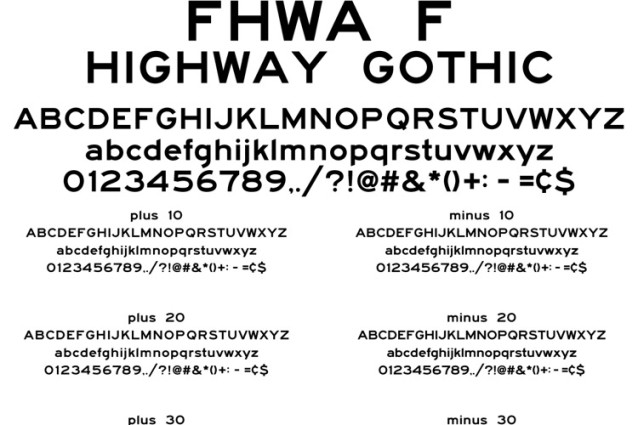
Highway Gothic F FHWA Font – These are the current Highway Gothic letterforms (updated in February 2025) used by the Federal Highway Administration (FHWA) to design the signs shown in the Manual of Uniform Traffic Control Devices (MUTCD) and the Standard Highway Signs (SHS) manuals. The spaced individual fonts are provided because the method of spacing for sign design by the FHWA does not conform to the manner of spacing used in graphic design programs. The spacing is done on a strict percentage of character width basis. These fonts contain no kerning pairs, and that is intentional. The fonts were updated in February 2025 with updated letterforms, fractions, and a consistent X height throughout the different weights.
Highway Gothic F FHWA Font